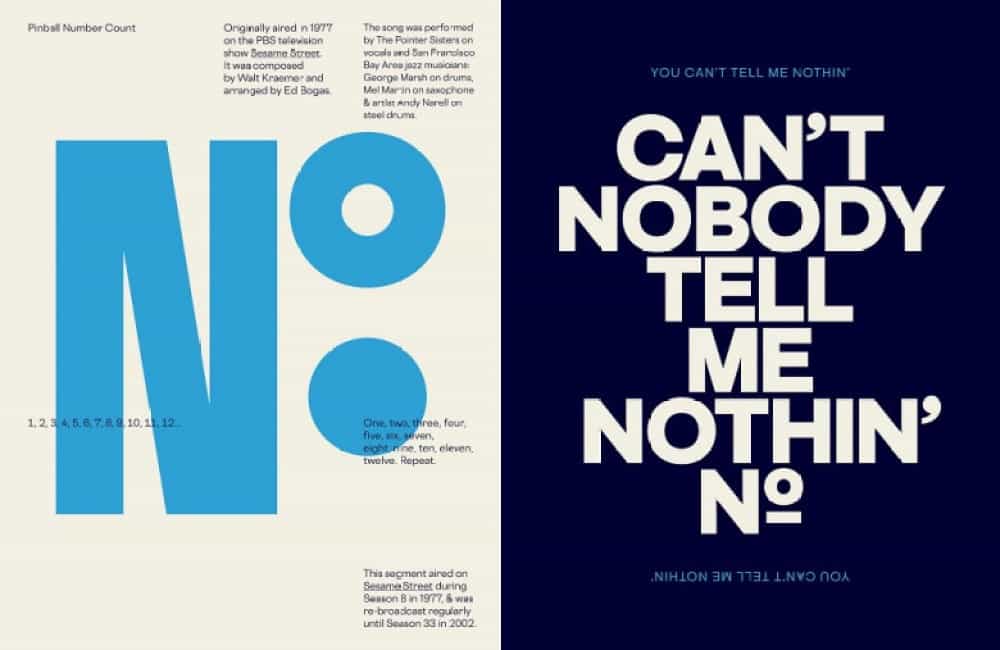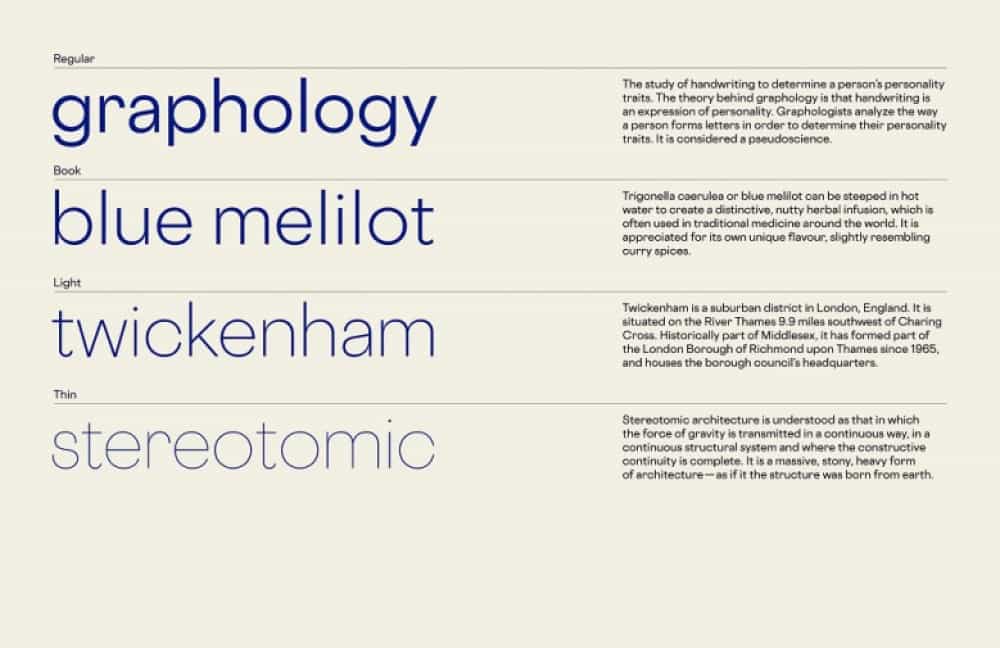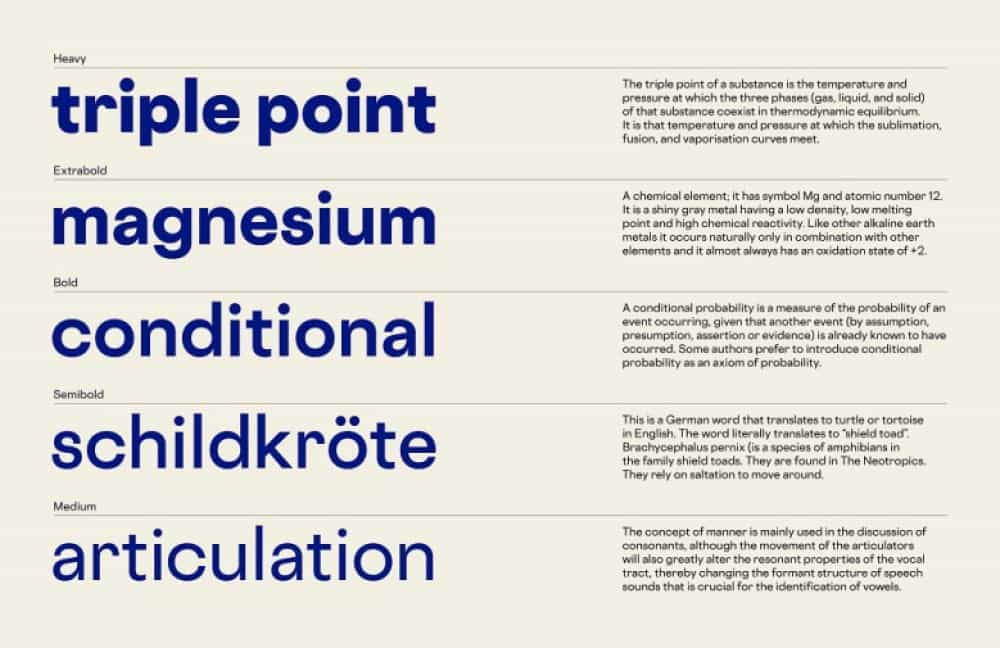
Cosmica is a sans serif font family that comes off as authoritative while maintaining a sleek design that can be easily incorporated into any project. The terminals of the stroke are made on the horizontal and lead to a geometric representation of the line.